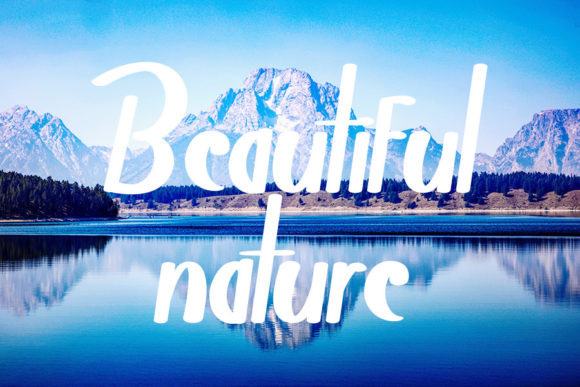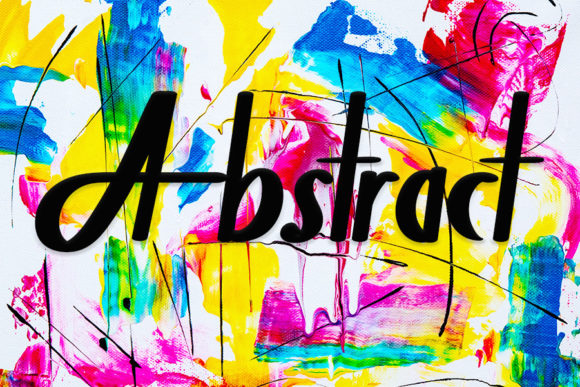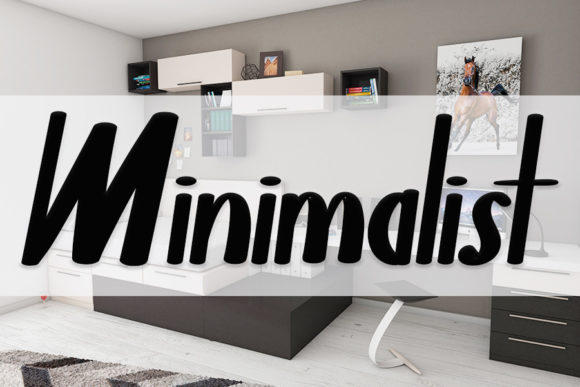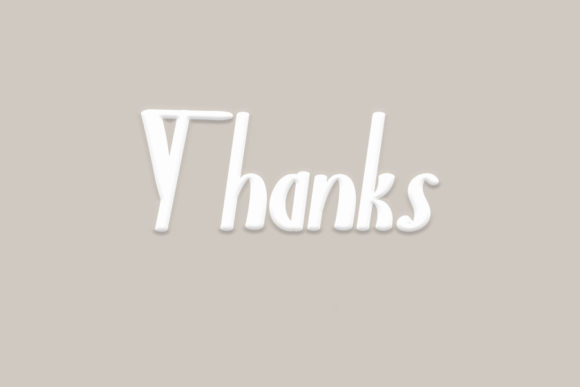
Astory Font: Elevate Your Designs with a Touch of Classy Elegance
In the world of typography, fonts play a crucial role in conveying the tone and personality of a design. For designers and crafters looking for a font that exudes a sense of casual sophistication, Astory Font is an excellent choice. This beautifully crafted handwritten font is designed to capture the essence of classy calligraphic influences while feeling contemporary and fresh.
The Story Behind Astory Font
Astory Font is a carefully designed casual handwritten font that aims to become a true favorite among designers and crafters. Its creators have poured their hearts into crafting a font that not only looks stunning but also feels approachable and modern. With Astory Font, you can add a touch of elegance to your designs without sacrificing readability or style.
Key Features of Astory Font
- Classy Calligraphic Influences: Astory Font boasts beautiful calligraphic influences that give it a sophisticated and refined feel.
- Casual and Handwritten: Despite its classy influences, Astory Font remains casual and handwritten, making it perfect for designs that require a personal touch.
- Contemporary and Fresh: This font’s modern twist ensures it stays fresh and relevant, making it suitable for a wide range of design projects.
- Highly Readable: Astory Font is designed to be highly readable, even at smaller font sizes, ensuring your message gets across clearly.
Uses of Astory Font
Astory Font’s versatility makes it suitable for various design projects, including:
- Branding and Logos: Create stunning brand identities with Astory Font’s elegant and sophisticated feel.
- Wedding and Event Stationery: Add a touch of romance and whimsy to your wedding and event designs with this beautiful font.
- Social Media Graphics: Elevate your social media presence with eye-catching graphics featuring Astory Font.
- Packaging and Product Design: Stand out on store shelves with packaging and product designs that showcase Astory Font’s unique charm.
Tips for Using Astory Font
To get the most out of Astory Font, consider the following tips:
- Pair with Contrasting Fonts: Combine Astory Font with contrasting fonts to create visual interest and hierarchy in your designs.
- Experiment with Colors: Play with different colors to find the perfect match for your design and brand identity.
- Use for Headings and Titles: Astory Font shines as a heading or title font, so use it to draw attention to important information.
Astory Font is a beautiful, casual handwritten font that brings a touch of classy elegance to any design project. Its unique blend of calligraphic influences, contemporary feel, and high readability make it an excellent choice for designers and crafters. Whether you’re working on branding, wedding stationery, social media graphics, or packaging design, Astory Font is sure to become a true favorite in your typography arsenal.